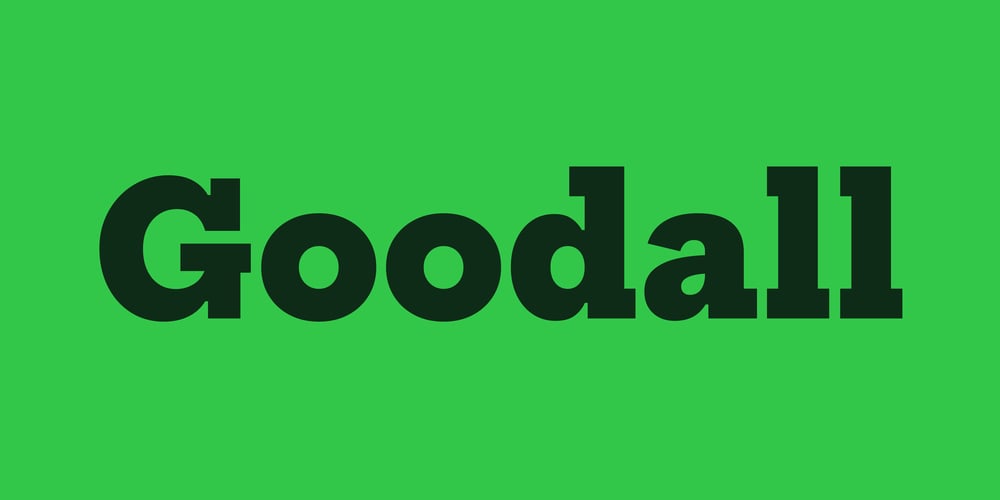
Goodall Font Family was designed by Colophon Foundry and published by Colophon Foundry. Goodall contains 10 styles and family package options. Goodall is a contemporary take on the geometric slab serif genre; bringing together a melting pot of 19th century wood type influences and more contemporary reference points such as Memphis (Dr. Rudolf Wolf, 1929) and Rockwell (Monotype, 1934).Initial sketches of Goodall were far more gestural and inspired by Vincent Figgins’ Four Line Pica Antique No. 2. Particularly intriguing was Figgins’ peculiar combination of round punctuation and square tittles on characters such as the ‘i’ and ‘j’ — one of the few design features that endured the design process.Goodall’s open apertures and ink traps improve legibility at smaller sizes, but are balanced with a geometric drawing approach so the forms retain a graphic disposition at larger scales. The italic forms have fewer serifs than the uprights — an idea adapted from classical serif italic models that helps create a variation in texture between the uprights and italics.